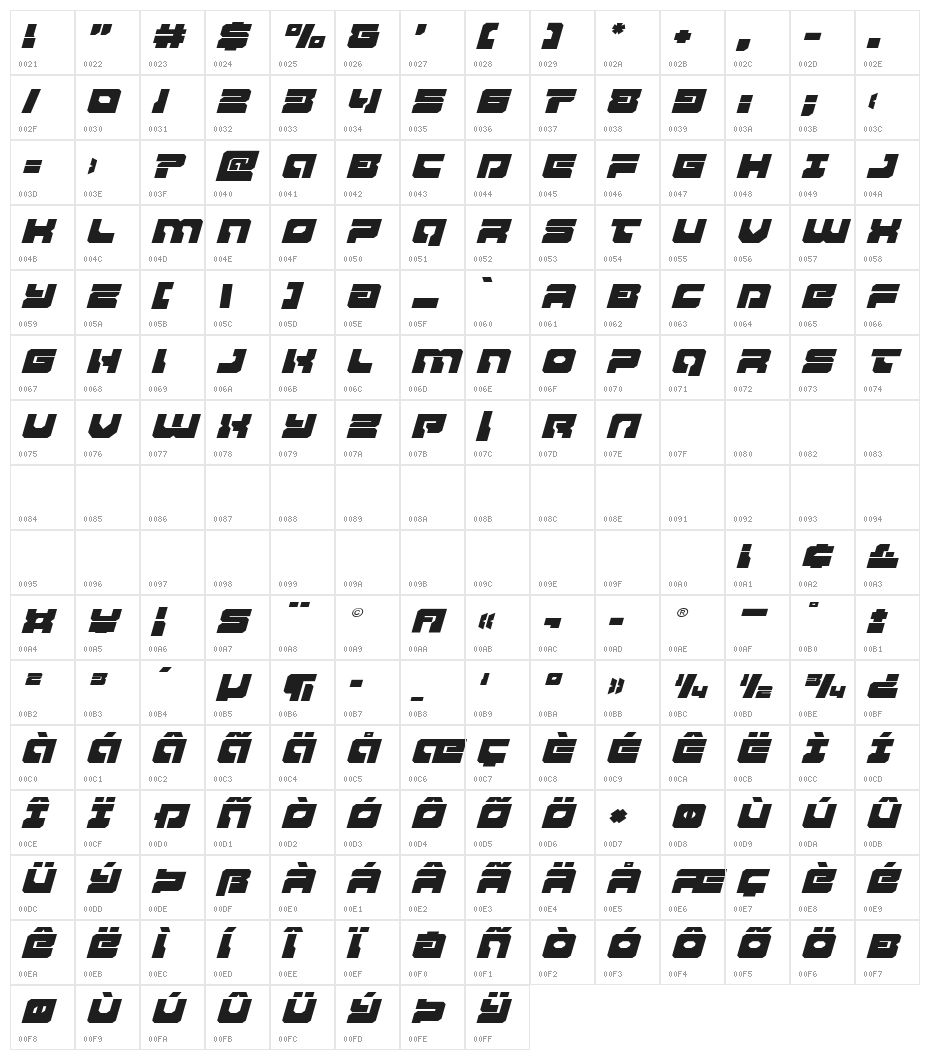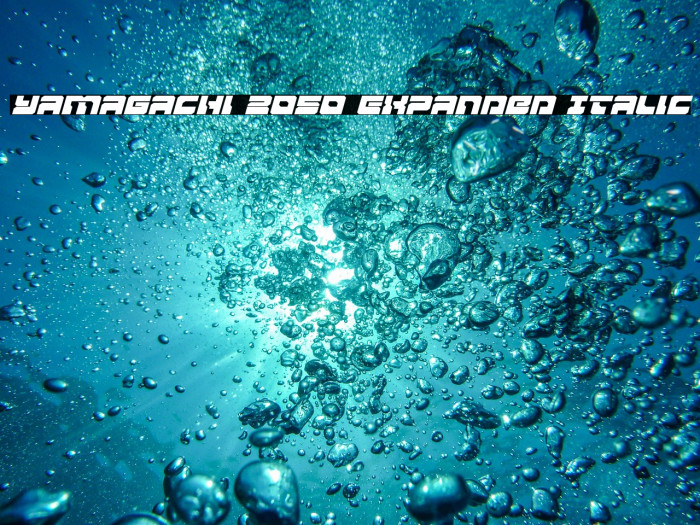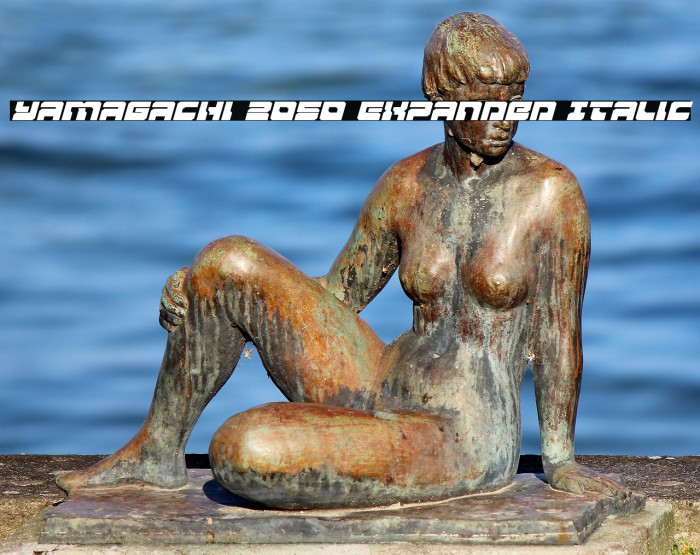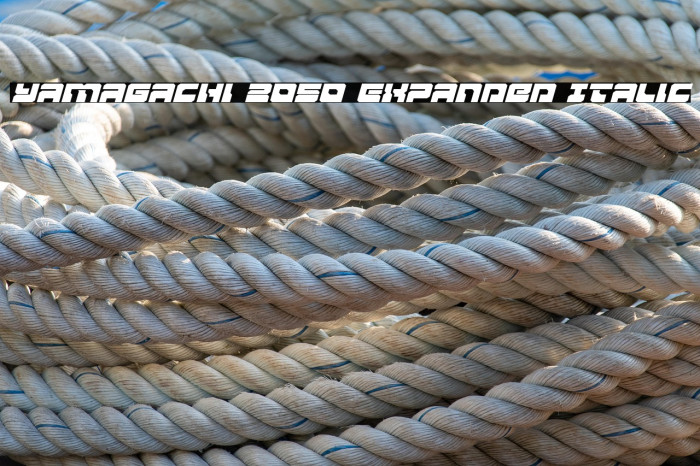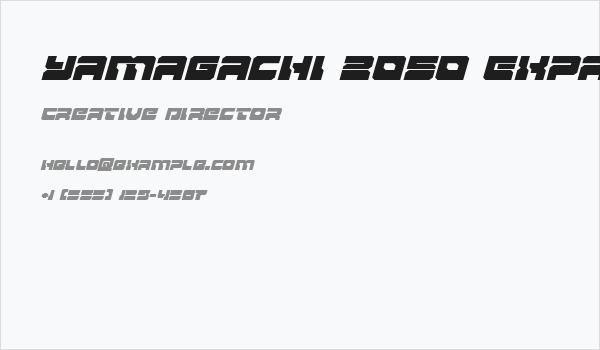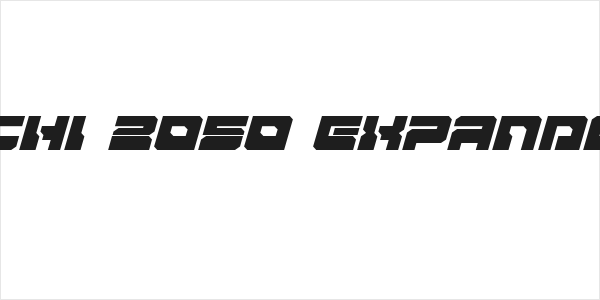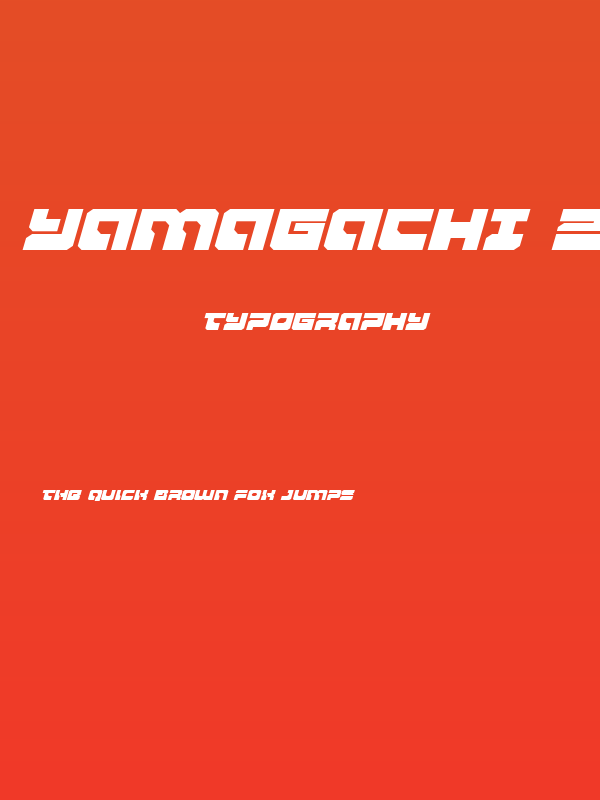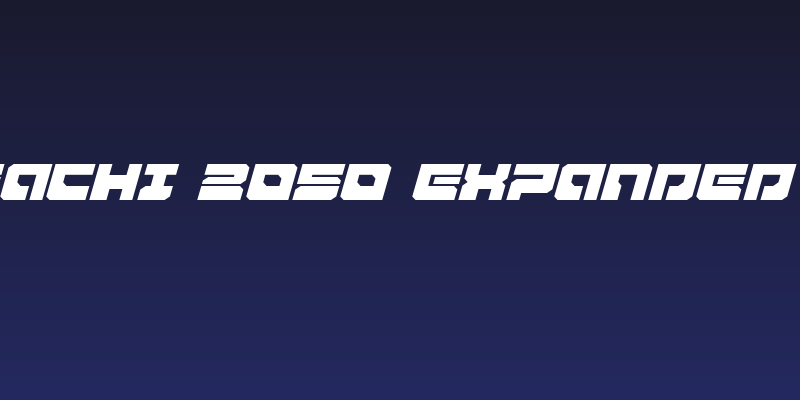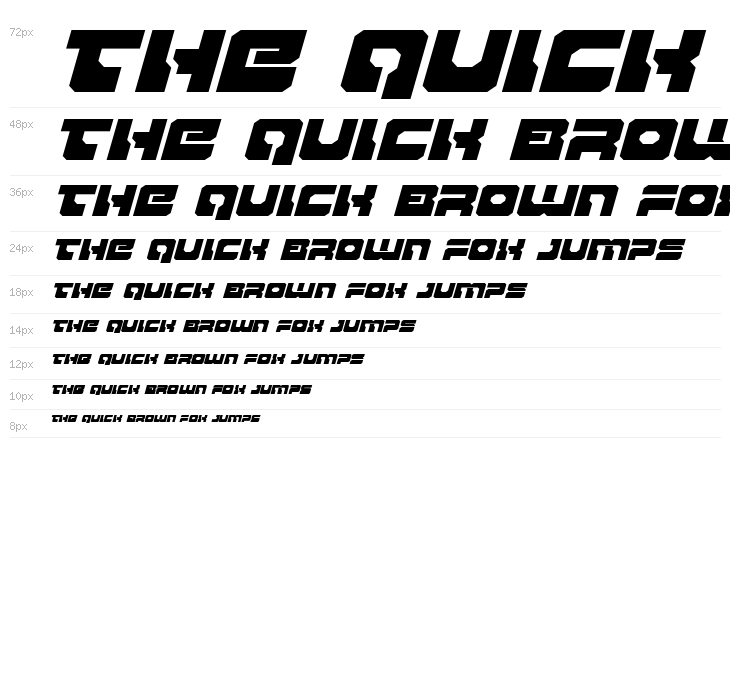
Yamagachi 2050 Expanded Italic Font
Yamagachi 2050 Expanded Italic Description
This font features a futuristic and bold design with a distinctly angular and geometric style. The characters are expanded and italicized, giving them a dynamic and forward-leaning appearance. The strokes are thick and consistent, contributing to a strong visual impact. The uppercase and lowercase letters maintain a uniform height, enhancing readability while preserving the unique aesthetic. Numbers and special characters are crafted with the same angular precision, ensuring a cohesive look across all glyphs. This font's modern and edgy style makes it suitable for projects that require a bold statement.
| Proposed Projects | Ideal for sci-fi themed designs, video game graphics, tech branding, and futuristic posters. |